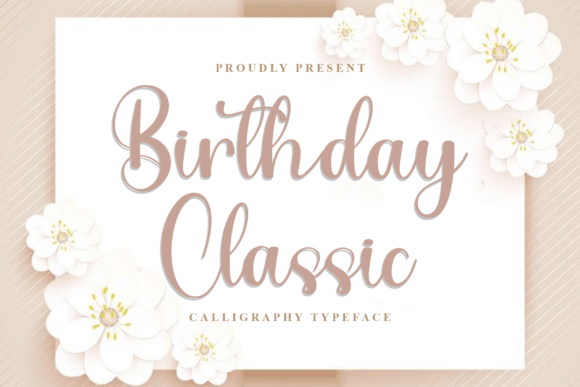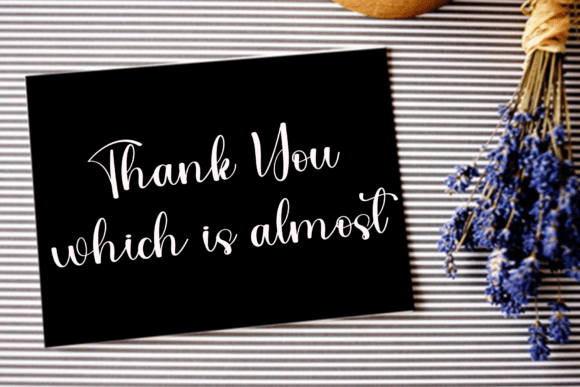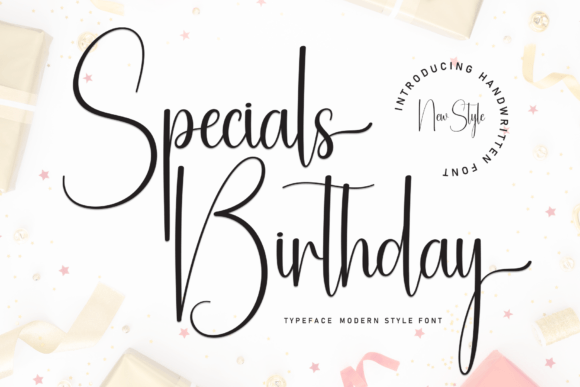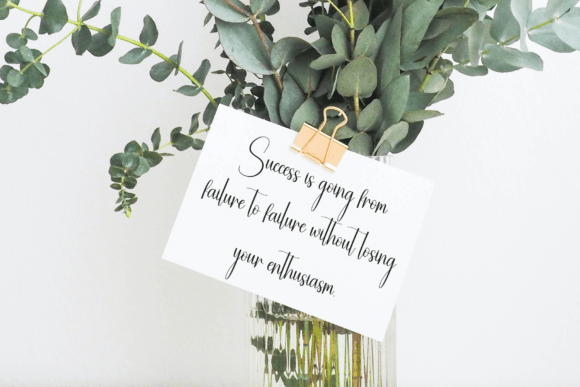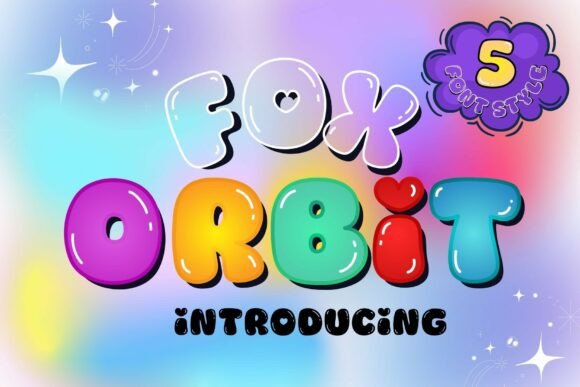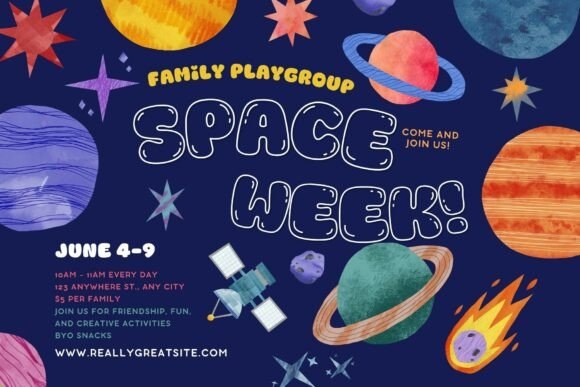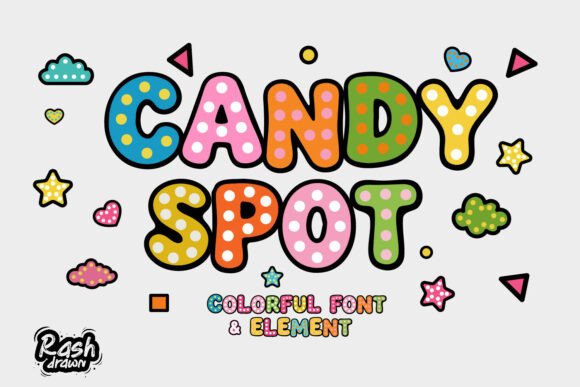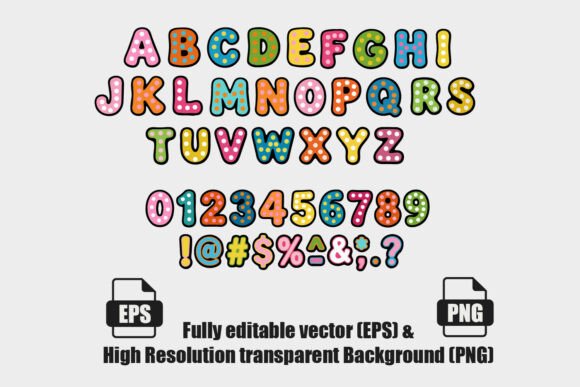
19 Best Birthday Fonts for Invitations to Elevate Your Celebrations
Choosing the right typography can make or break your event stationery. Whether you are hosting a whimsical children’s party or an elegant milestone celebration, the typeface you choose sets the mood before the envelope is even opened. In this guide, we explore the 19 best birthday fonts for invitations to help you stand out.
Selecting the Best Birthday Fonts for Invitations
Typography is more than just readable text; it is an expression of personality. From flowing scripts that scream elegance to chunky, playful lettering that brings instant joy, the right font tells your guests exactly what to expect from your celebration.
Birthday Classic Font
Birthday Classic: This typeface stands out as one of the best birthday fonts for invitations, offering a timeless aesthetic that brings a touch of classic charm and celebration to your design projects.
Specials Birthday Font
The Specials Birthday font is a playful and festive typeface that stands out as one of the best birthday fonts for invitations, perfect for adding a sense of joy and character to your designs.
Fox Orbit Font
Fox Orbit is a modern and dynamic typeface that ranks among its peers as a great choice for invitations. It offers a stylish and original aesthetic, while its unique lines add personality and a celebratory flair to any creative project.
Candy Spot Font
This playful and vibrant typeface is one of the best birthday fonts for invitations, adding a sweet and joyful touch to any celebratory design. It is highly readable and perfect for themes involving treats or youth-focused events.
Magical Birthday Font
This typeface stands out as one of the best birthday fonts for invitations, infusing a touch of magic and playful charm into all your celebratory designs. Its unique flow is perfect for elegant yet whimsical invites.
Hello Birthday Font
Hello Birthday is a playful and festive typeface and, quite simply, one of the best birthday fonts for invitations. It lends a joyful and creative flair to your special event stationery, perfect for crafting memorable birthday cards and celebratory party decorations.
Fluffy Cat Font
This playful and charming typeface is the perfect choice for those seeking the best birthday fonts for invitations, bringing a touch of whimsy and delight to your special celebration designs.
Catton Candy Font
Catton Candy is a playful and charming typeface that stands out as one of the best birthday fonts for invitations, adding a delightful touch of whimsy to any celebration project. It is great for birthdays, baby showers, or any fun-filled event.
Chocolatos Font
Chocolatos is a playful and stylish typeface that ranks among the best birthday fonts for invitations, lending a sweet, celebratory charm to your designs. Its rounded, substantial letterforms are perfect for capturing a festive mood on party stationery.
Baby Bold Font
Featuring a playful and rounded aesthetic, this typeface stands out as one of the best birthday fonts for invitations, perfect for adding a sense of joy and whimsy to your celebration designs.
Happy Birthday Font
This delightful handwritten typeface is among the best birthday fonts for invitations, perfectly suited for crafting eye-catching party cards and festive lettering that feels personal and warm.
Happy Birthday Font
This delightful handwritten typeface is among the best birthday fonts for invitations, perfect for adding a touch of playfulness and joy to any celebration-themed design project that needs a custom feel.
Happy Birthday Font
This delightful typeface stands out as one of the best birthday fonts for invitations, adding a touch of joy and playfulness to any celebratory design. Its unique style effortlessly transforms standard text into a vibrant greeting that is sure to capture the attention of your guests.
Happy Birthday Font
This delightful font is perfectly suited for crafting festive invitations, adding a touch of cheer and style to your celebratory projects. It is an excellent choice among the best birthday fonts for invitations, offering a harmonious blend of playfulness and readability.
Happy Mother Font
This charming handwritten typeface is among the best birthday fonts for invitations, lending a warm and delicate aesthetic to your special event stationery, perfect for more sophisticated or intimate gatherings.
Mayang Font
This playful handmade font is one of the best birthday fonts for invitations, perfectly capturing a whimsical and heartwarming aesthetic for your celebratory designs. It resonates well with creative, hand-drawn party themes.